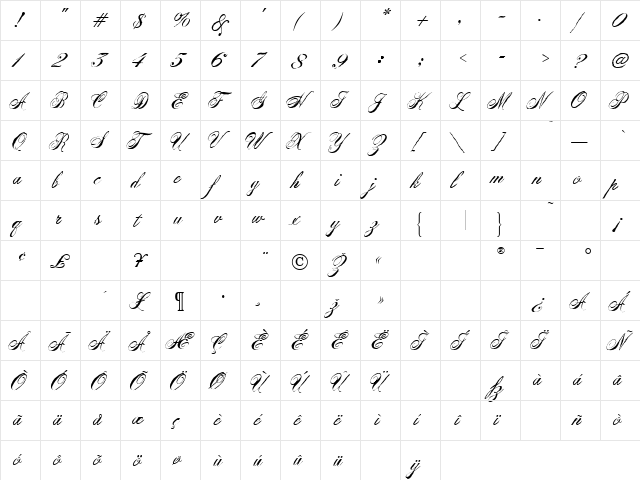
Virginia Antique Regular
Design Context for Virginia Antique Typeface
Virginia Antique has the warm character of retro typography — evoking diners, record sleeves, and the golden age of print advertising.
Font Pairing: Combine Virginia Antique with a simple slab or neutral sans — period-accurate companions reinforce the vintage feel without competing for attention.
Pro Tip: Use Virginia Antique for headlines and pull quotes rather than body copy — its personality is best appreciated in short, focused bursts.